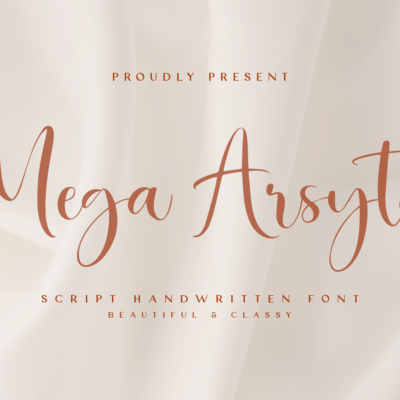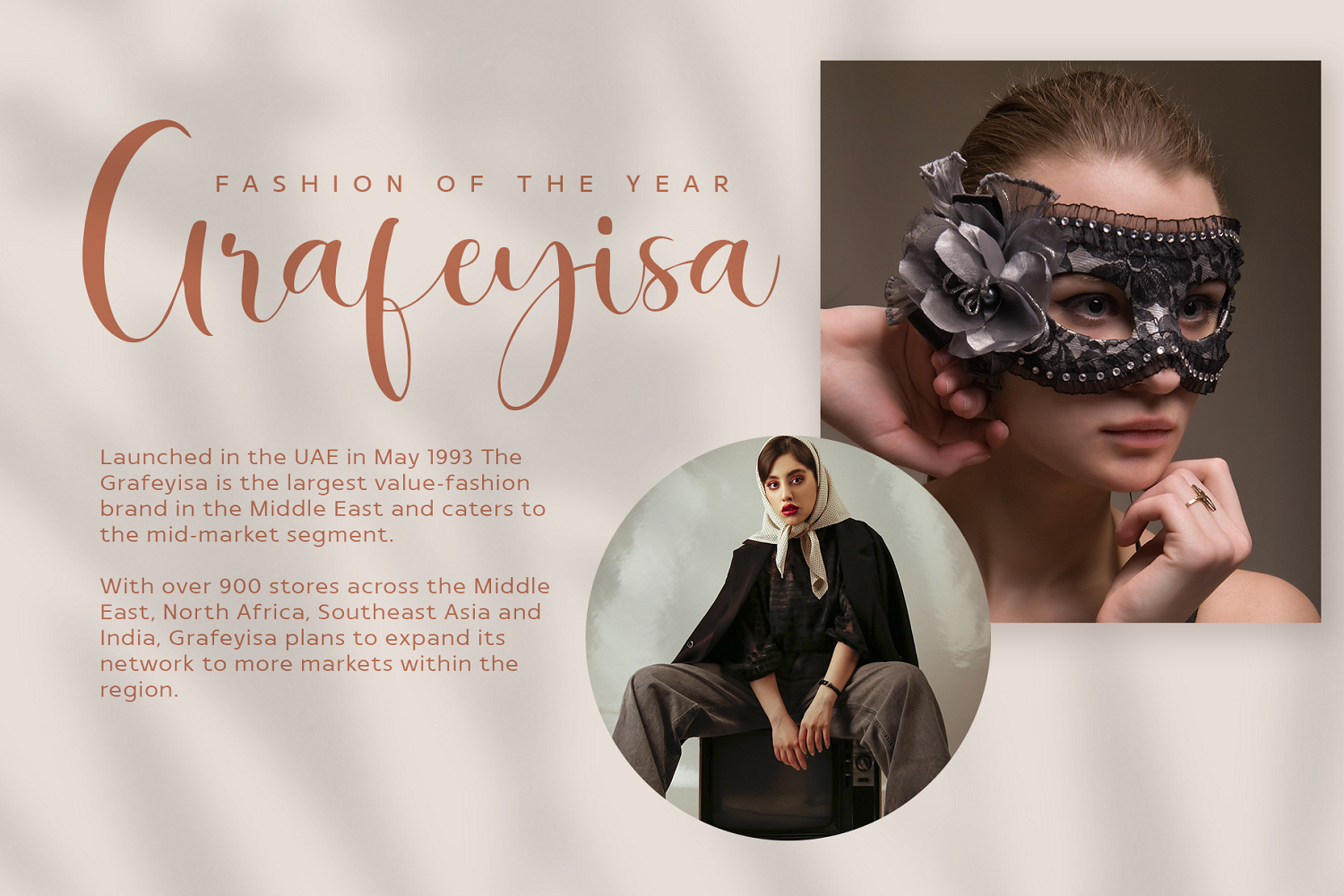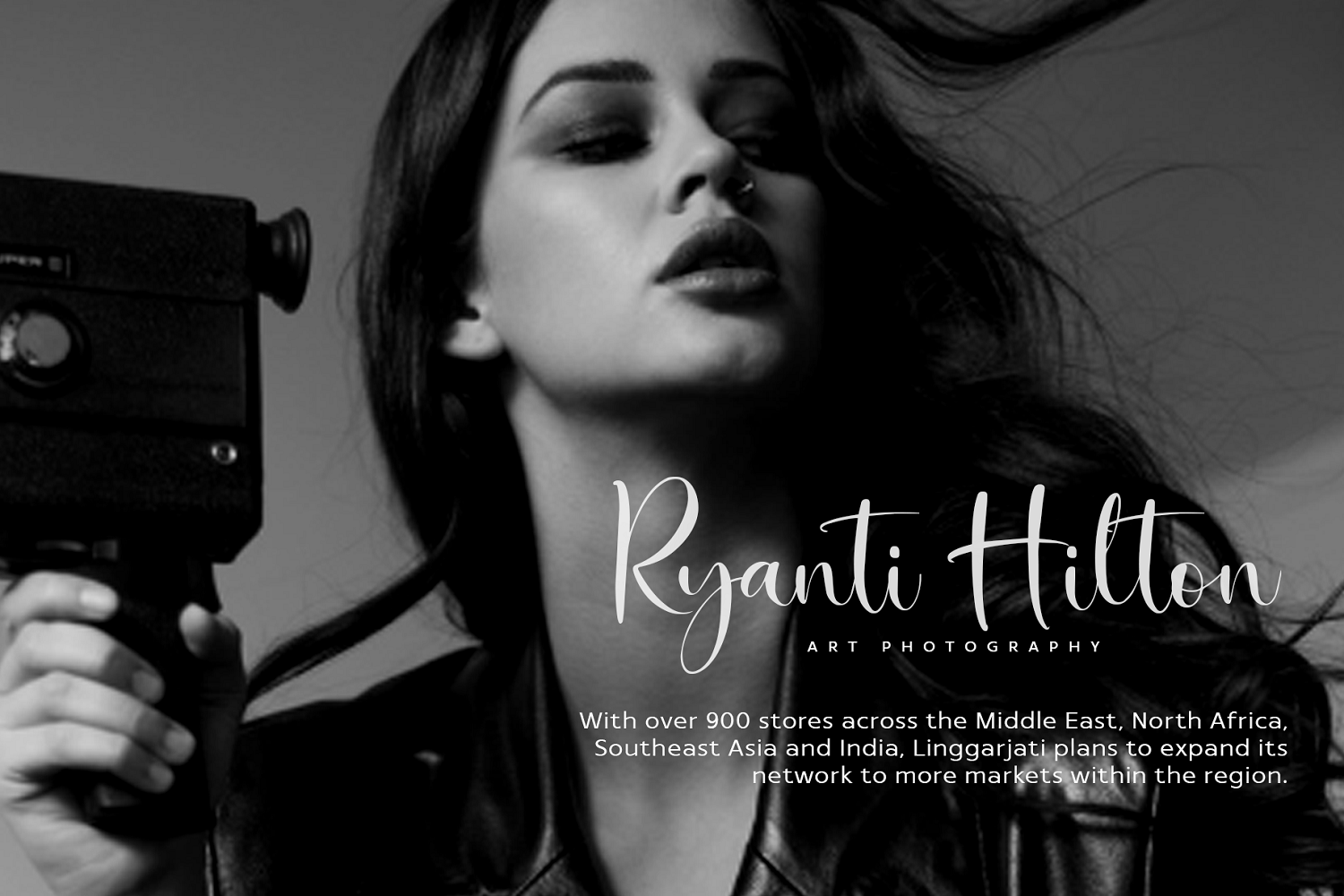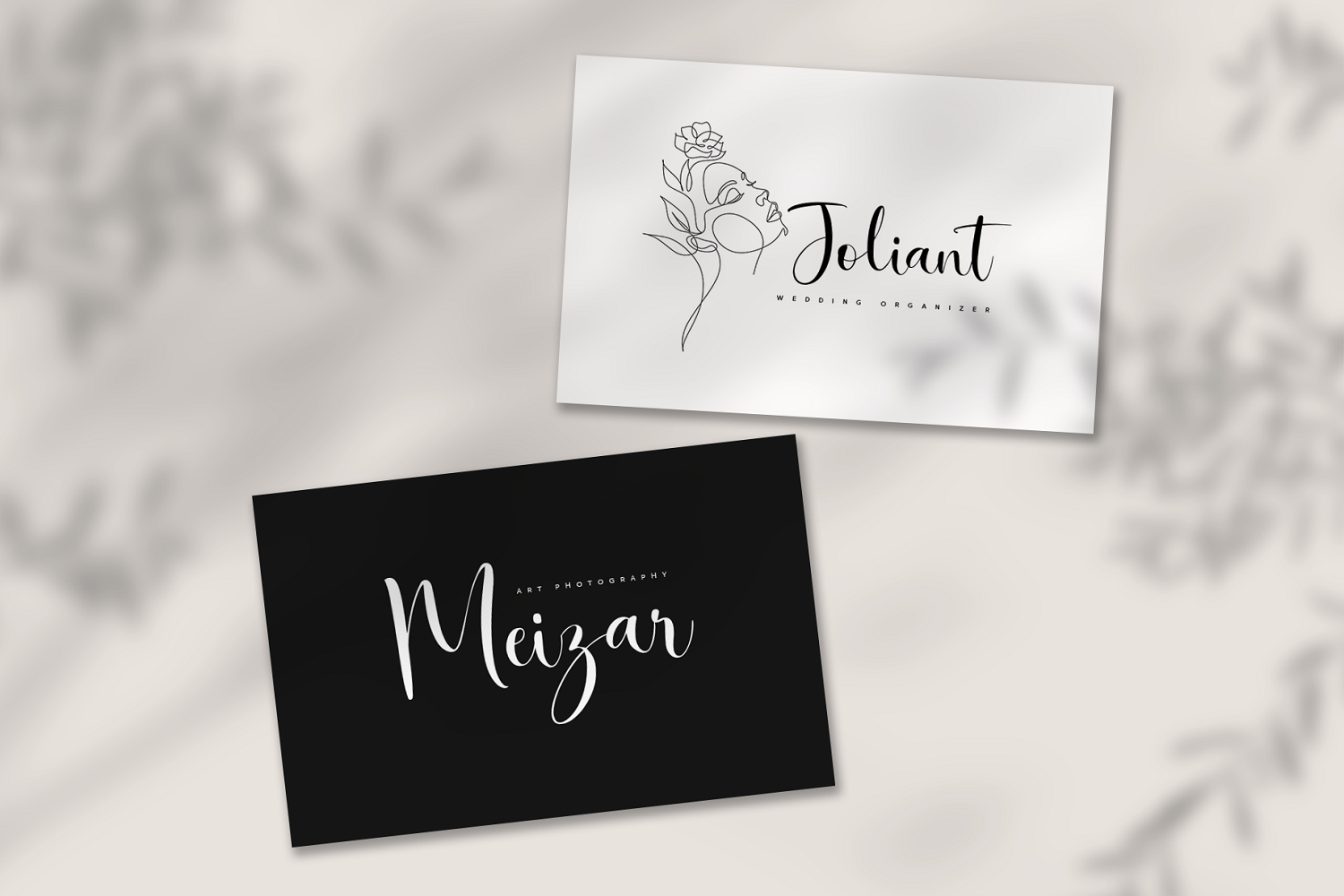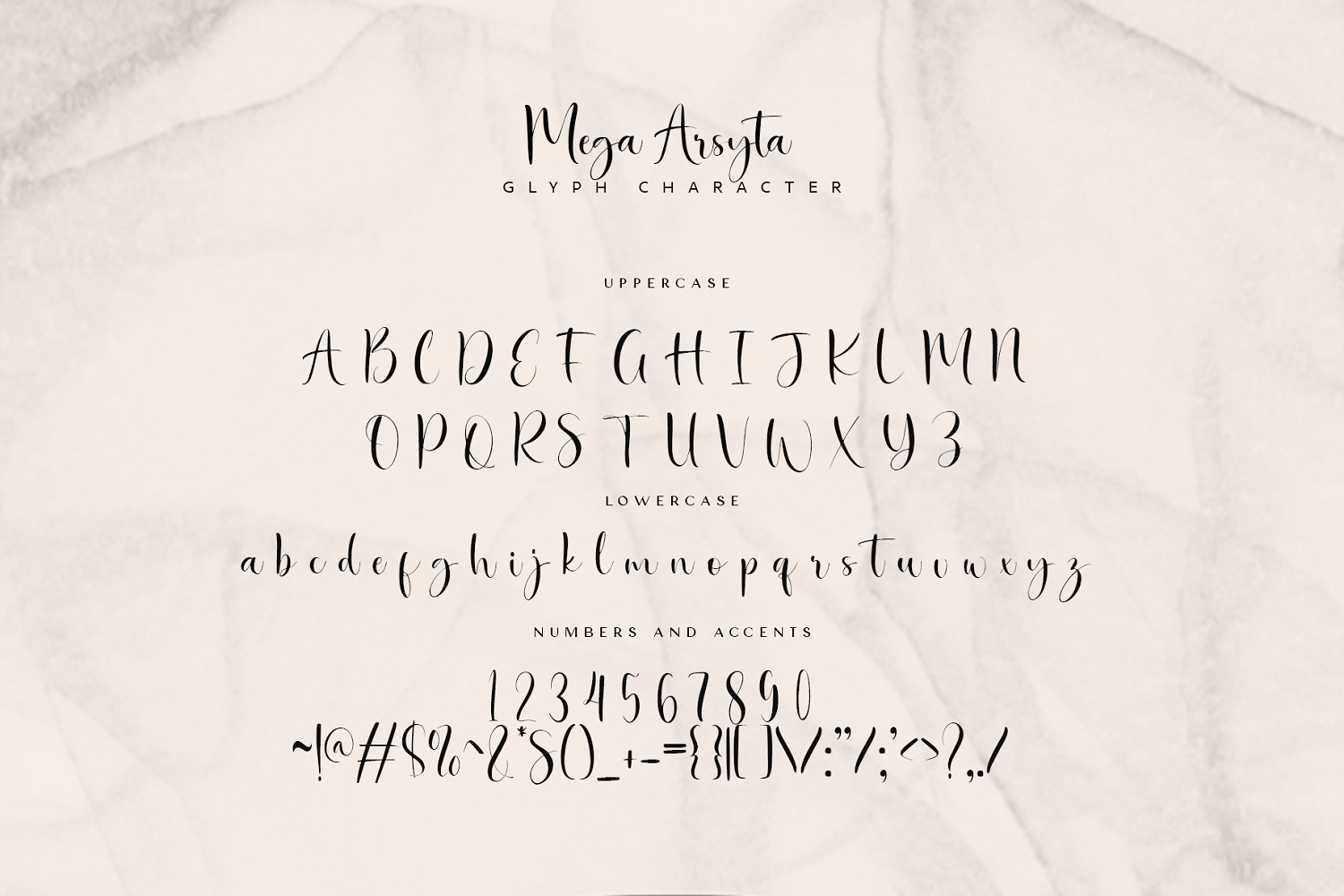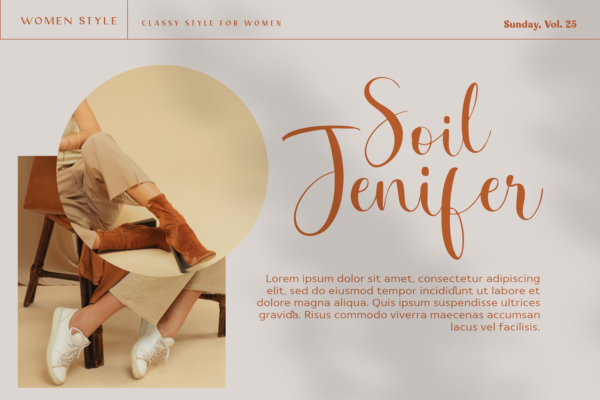
Introducing Mega Arsyta Script Handwritten Font
This Font can be used for any variety of purposes, such as: Photography, Wedding Invitation, Packaging Product, Logo Type, Brand, and also can be used for personal purpose. This Font Template contains Modern, Elegant, creative, Professional and Unique Concept.